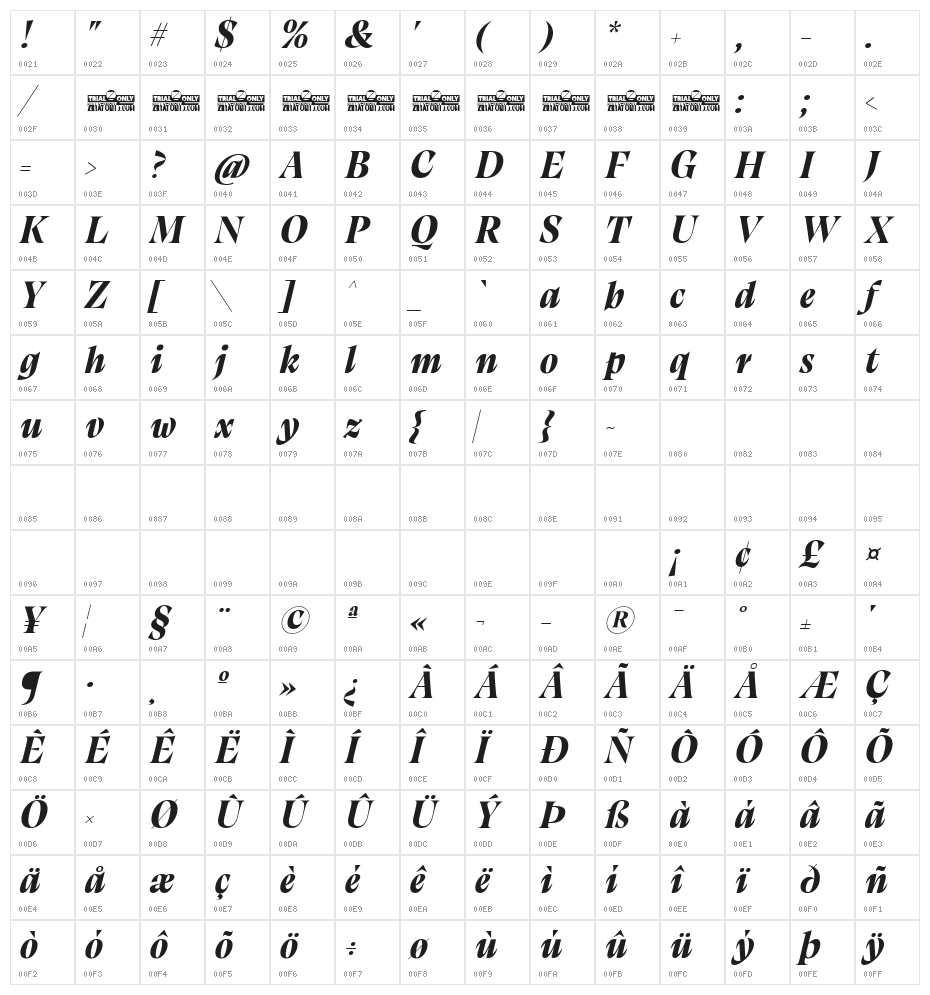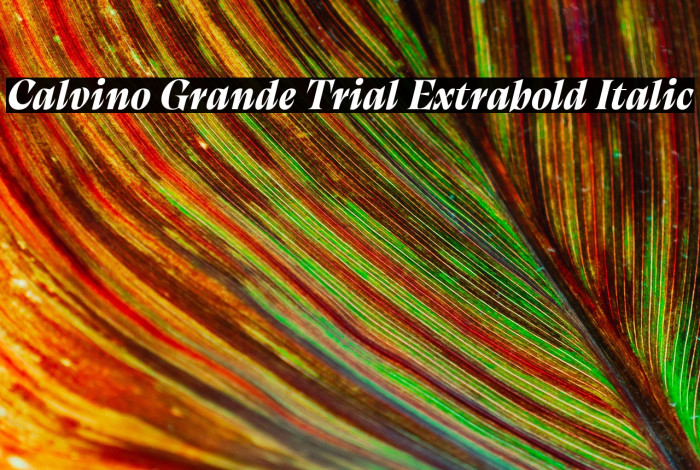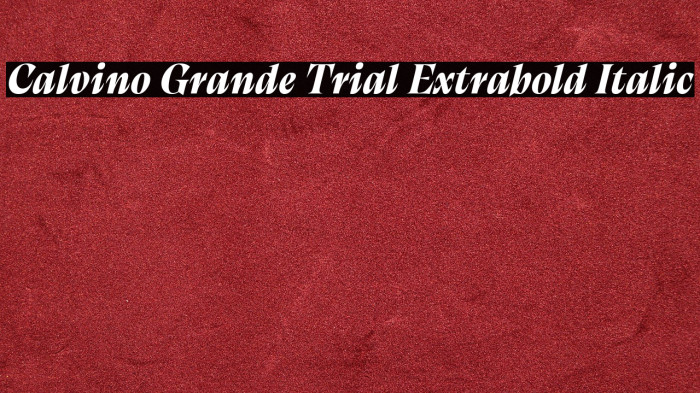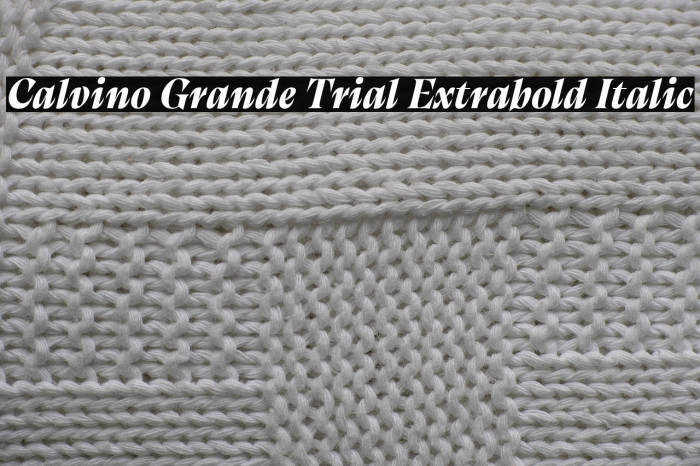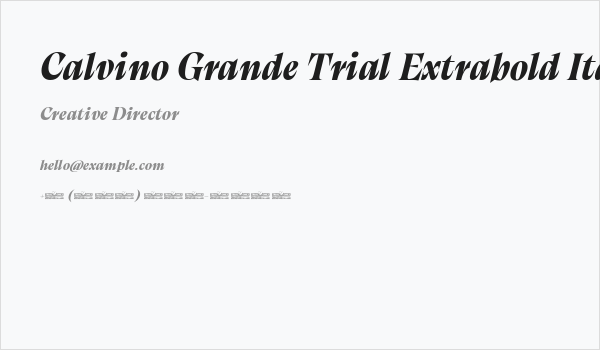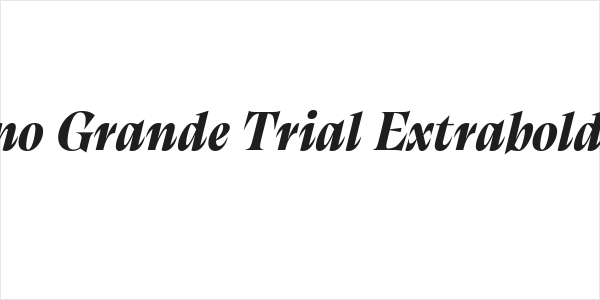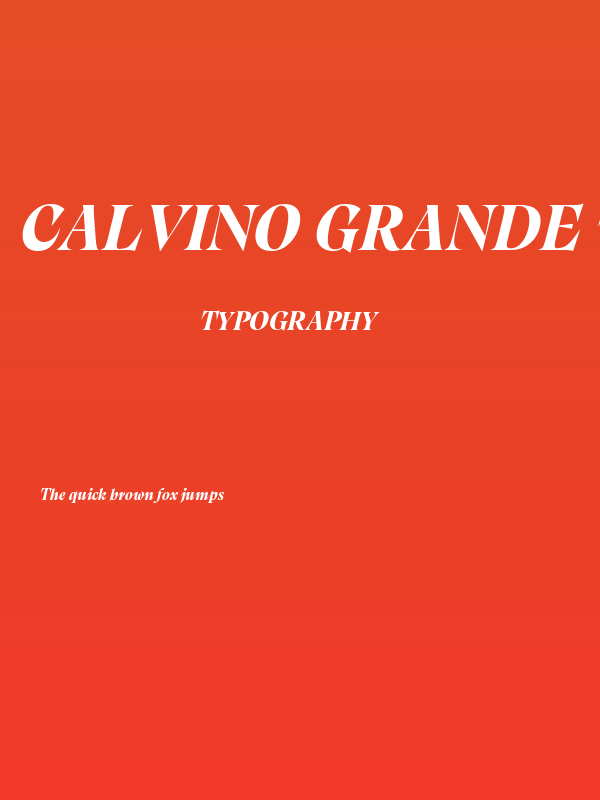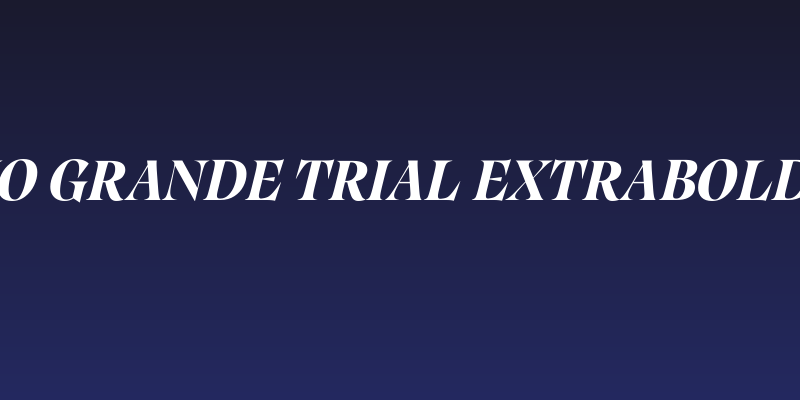
Calvino Grande Trial Extrabold Italic Font
Calvino Grande Trial Extrabold Italic Description
This font exhibits a bold and dynamic presence with its extra-bold weight and italic style. The characters are sharply defined with high contrast between thick and thin strokes, giving it a dramatic and elegant appearance. The serifs are pronounced, adding a classic touch while maintaining a modern flair. The italic slant enhances the sense of motion and sophistication, making it suitable for impactful designs. The uppercase letters are commanding, while the lowercase letters maintain readability with a slightly condensed form. The numerals and special characters are consistent with the overall style, ensuring uniformity across different uses.
| Proposed Projects | Ideal for luxury branding, editorial headlines, book covers, and high-end product packaging. |